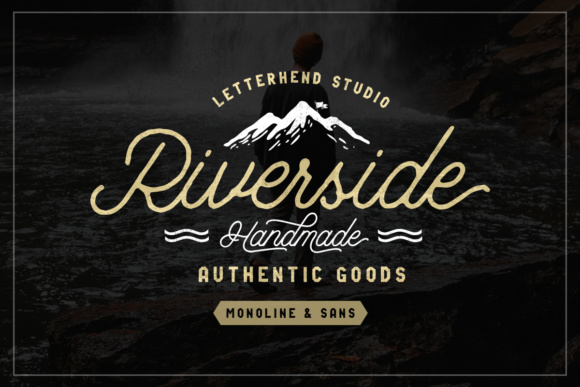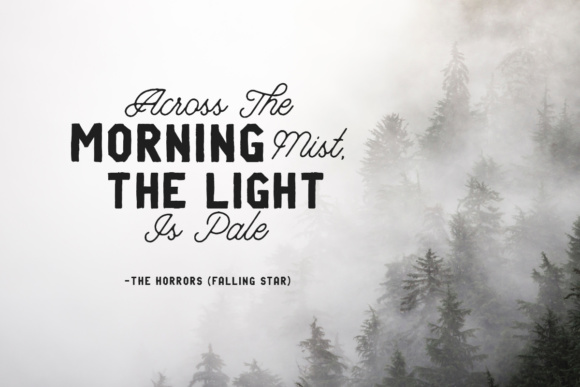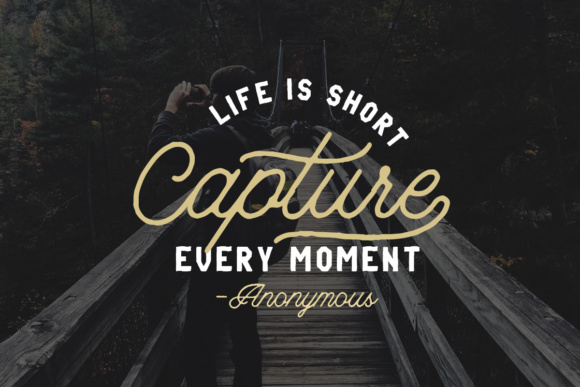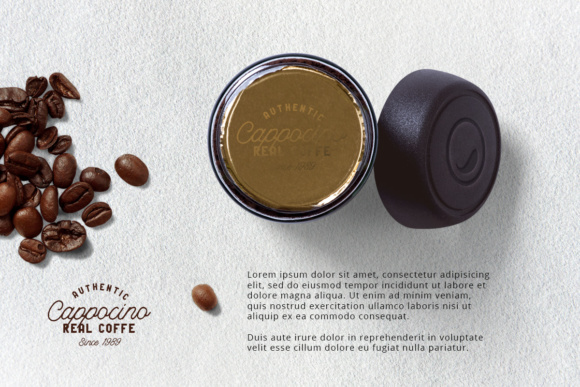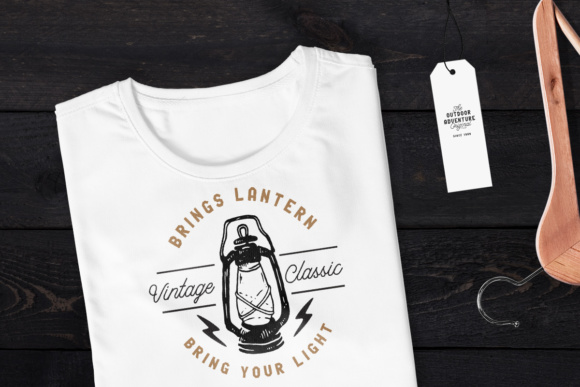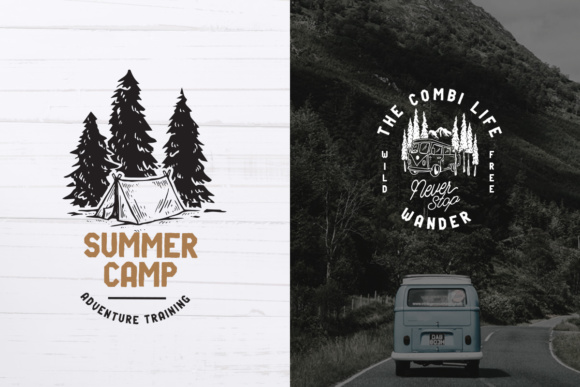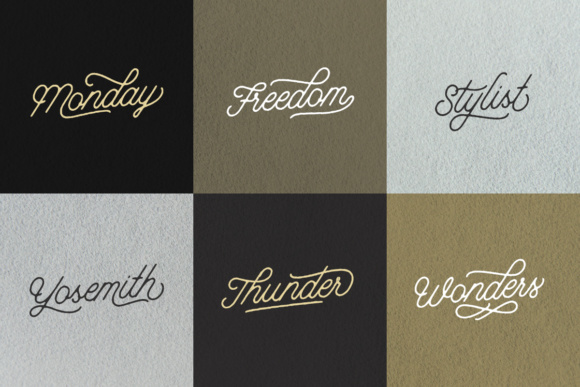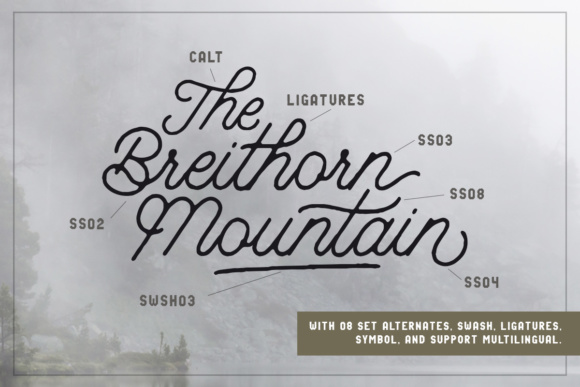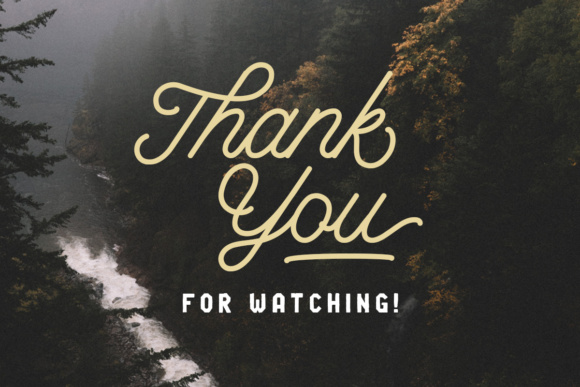
Riverside Duo Font
About Riverside Duo Font
A handmade typeface with monoline and sans. This font is perfect to be used for multiple purposes such as; t-shirt designs, signatures, headlines and much more!